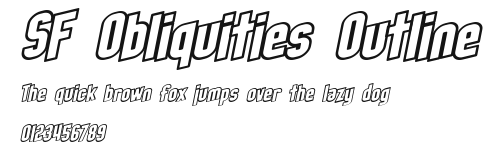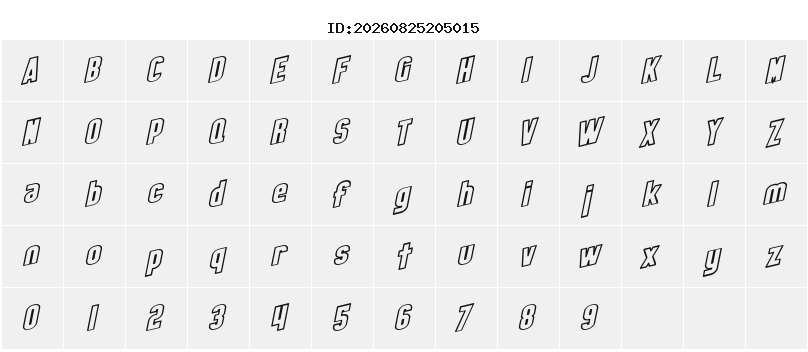
SF Obliquities Outline Preview
• Font Name: SF Obliquities Outline
• Full Font Name: SF Obliquities Outline Bold
About SF Obliquities Outline.ttf
SF Obliquities Outline.ttf is a modern, elegant sans-serif font designed for ultimate readability and visual harmony. Perfect for branding, headlines, web design, and print materials.